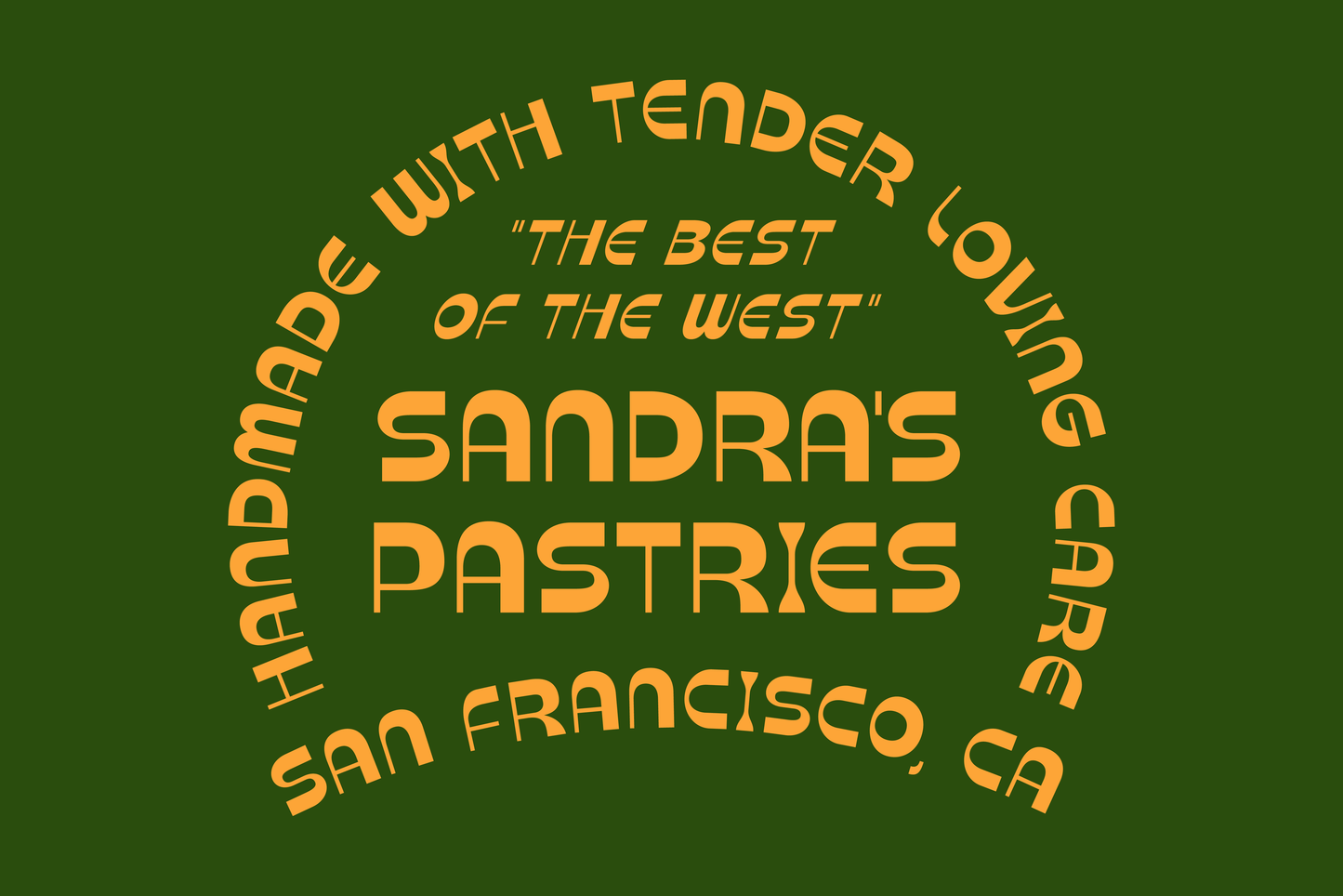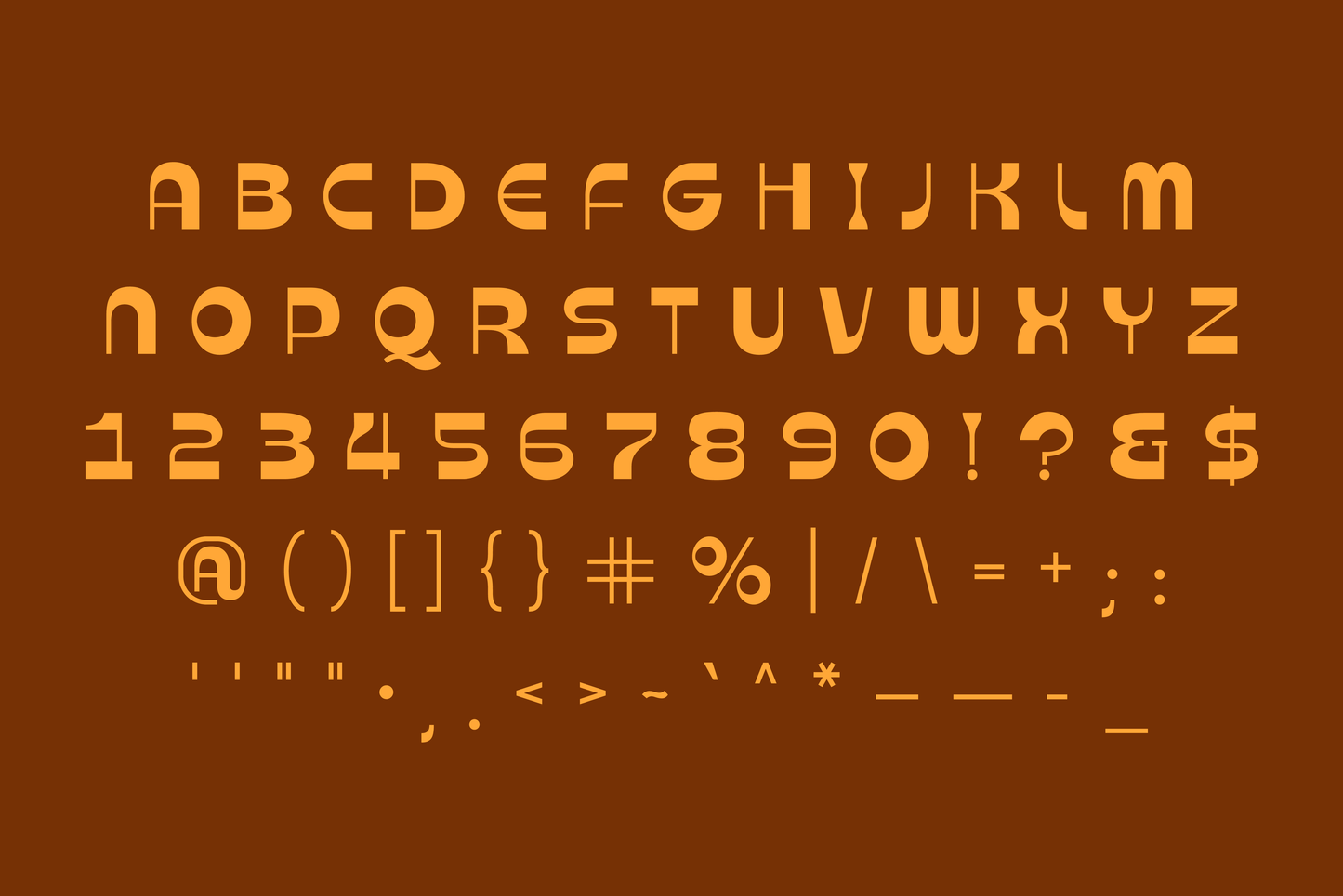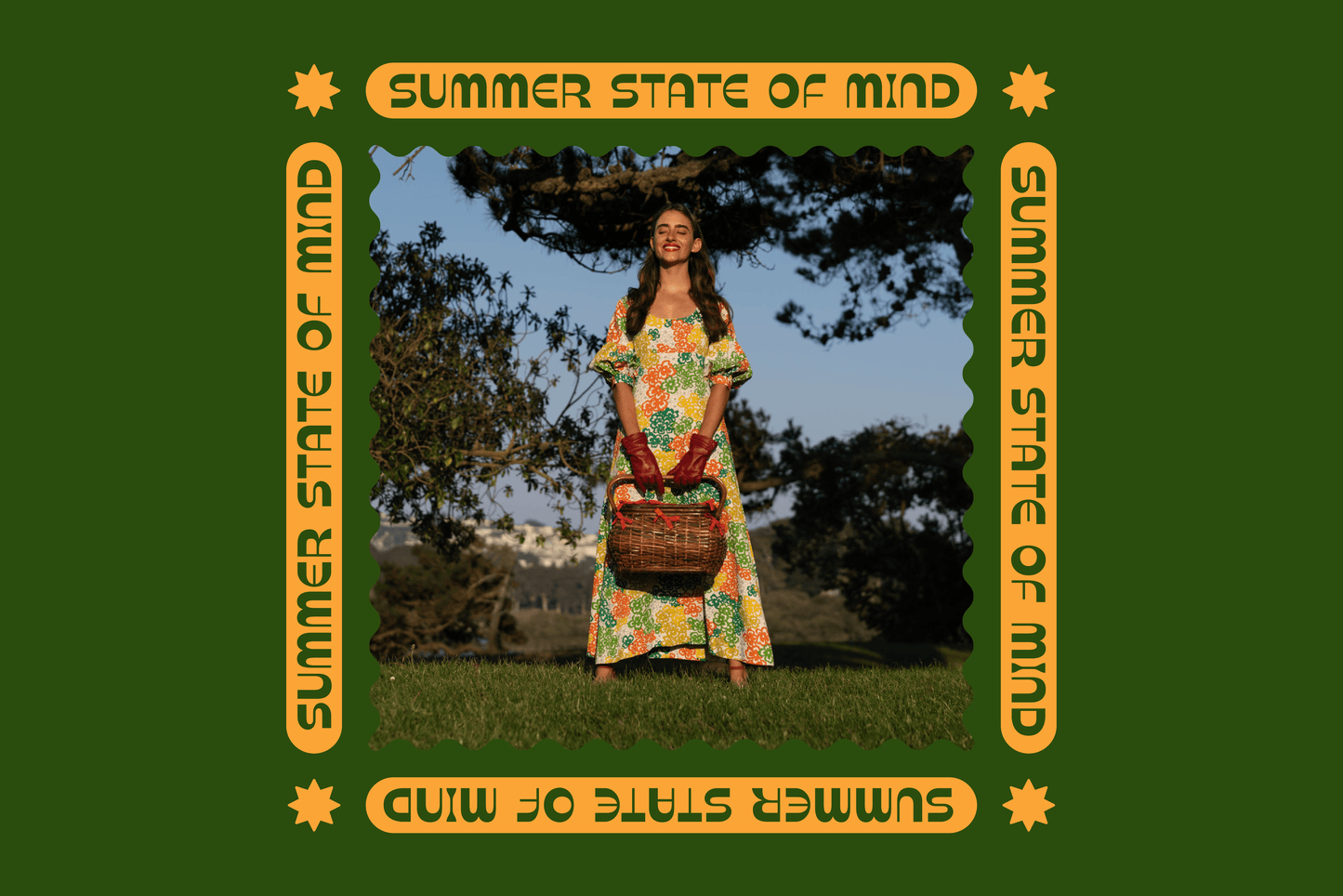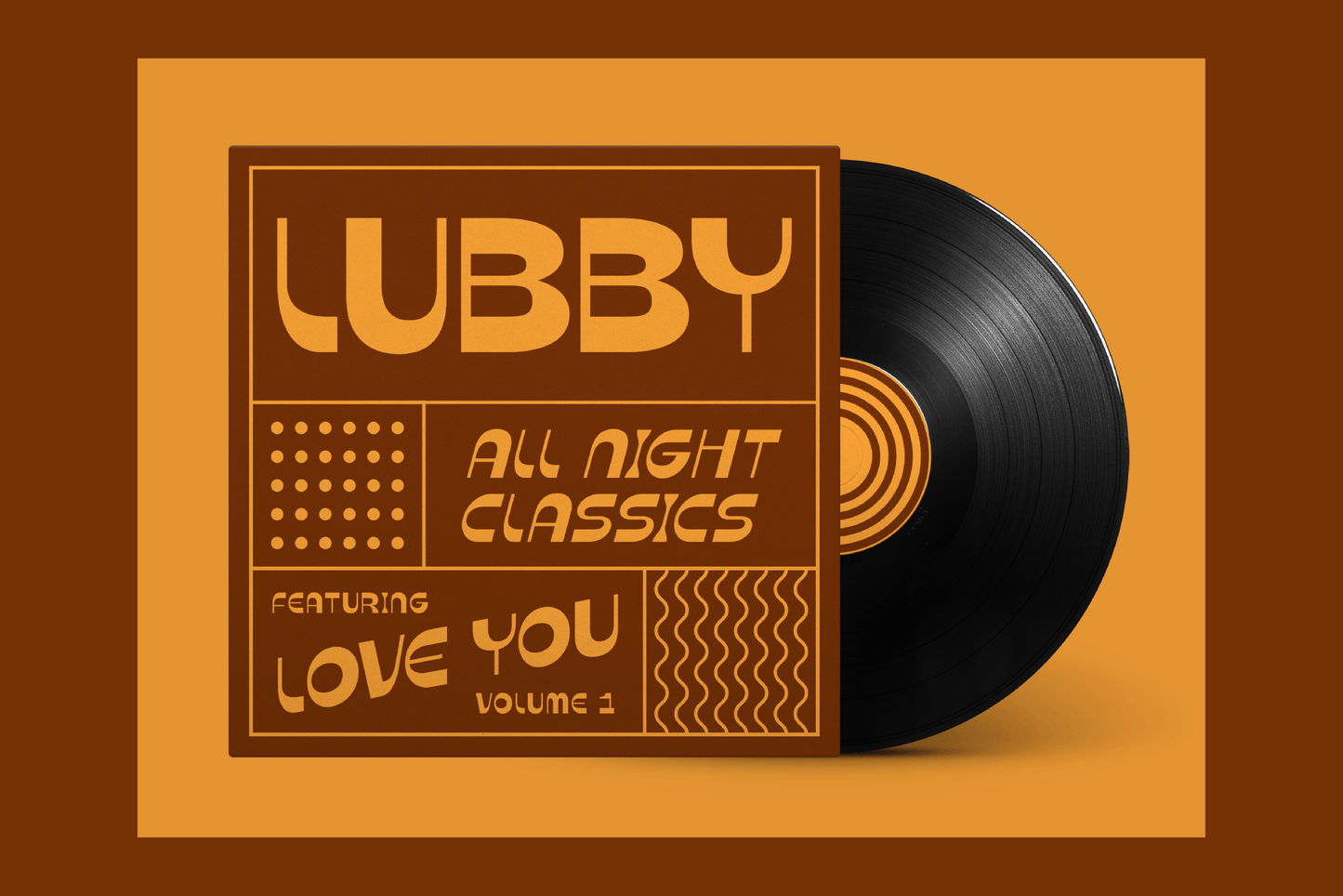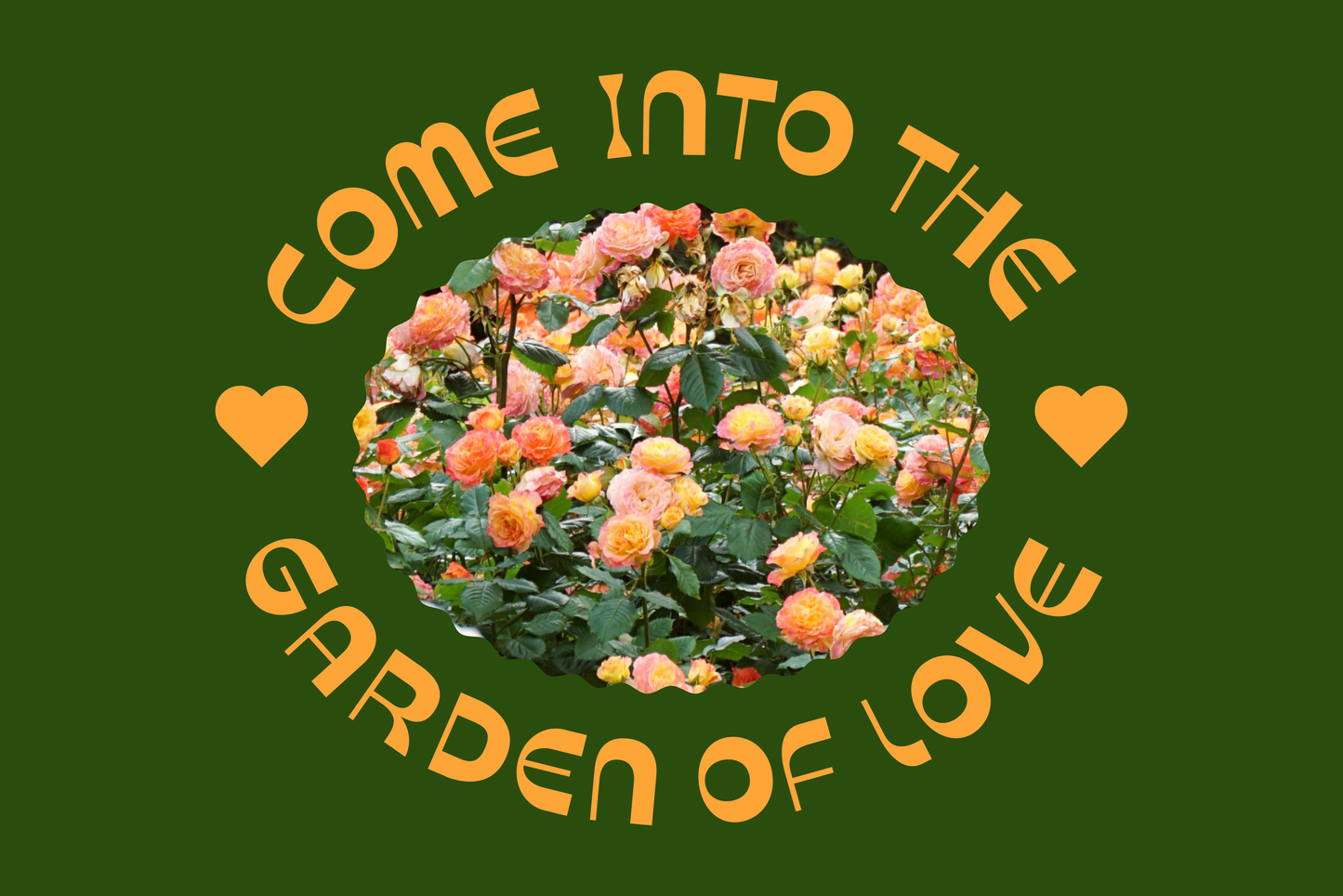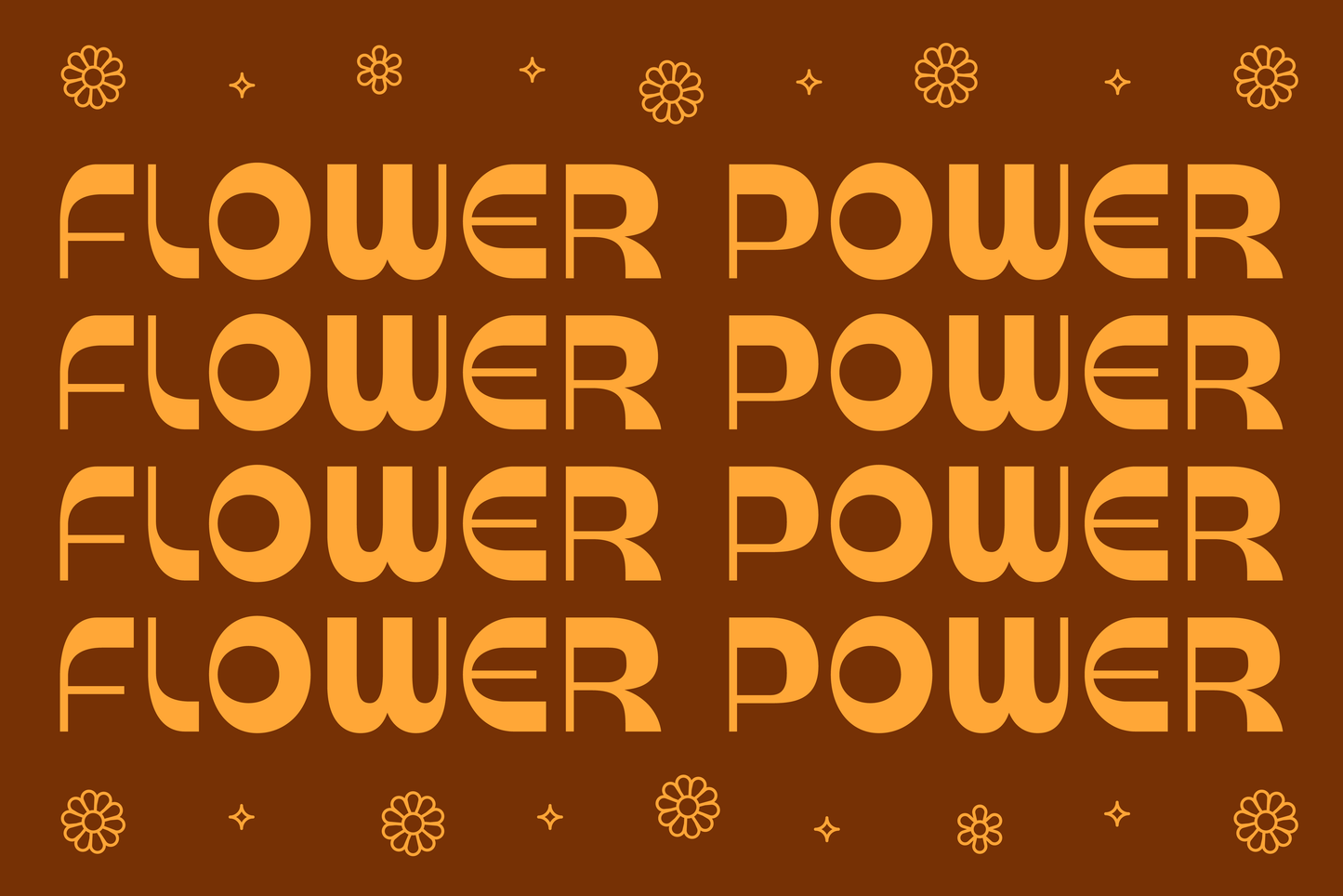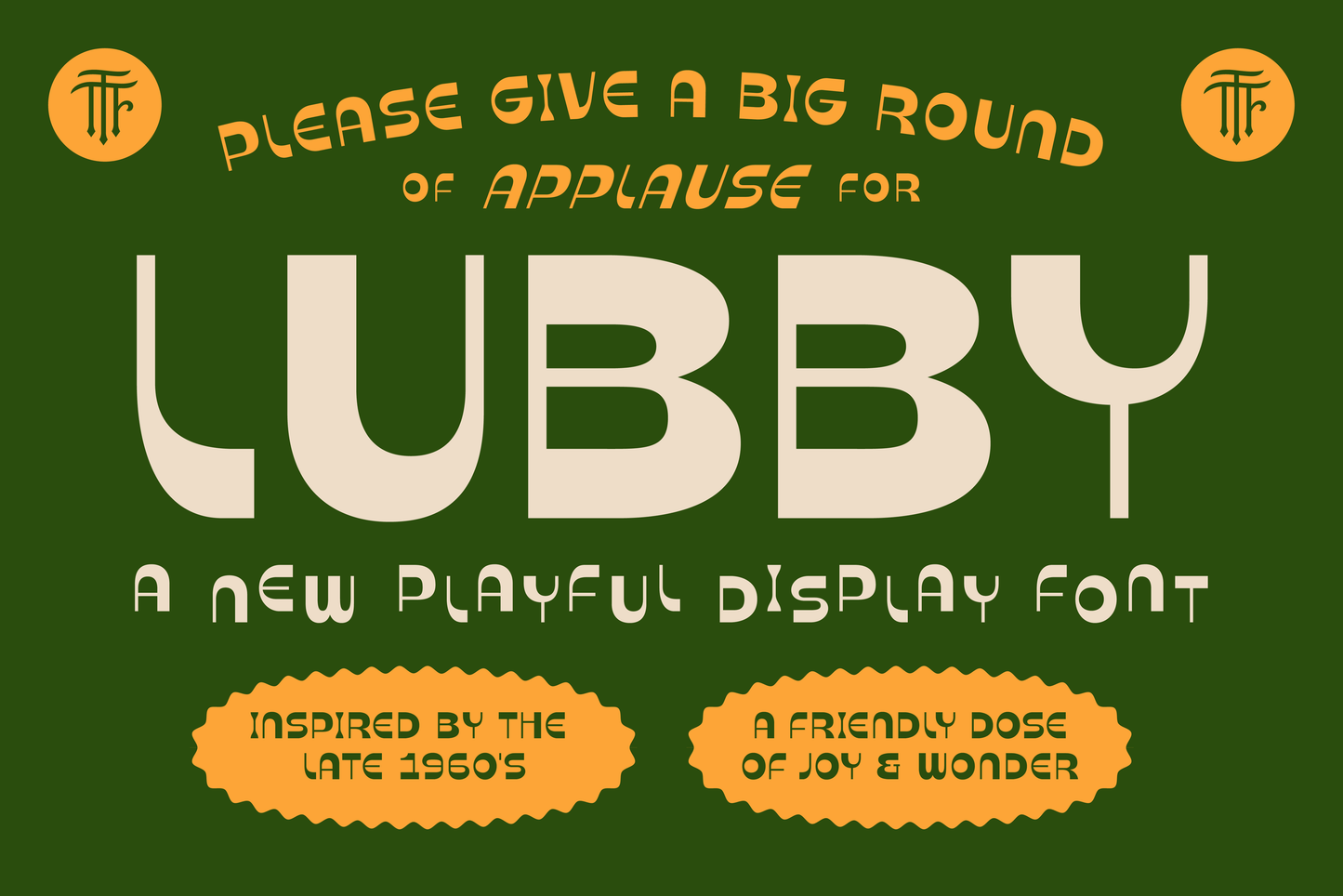
Embark on a creative adventure with Lubby, a high contrast display font that radiates joy and fascination. Infused with a quirky personality inspired by the late 1960s, Lubby is the perfect companion to infuse your projects with a sense of wonder and mystery. Uncover the magic within Lubby.